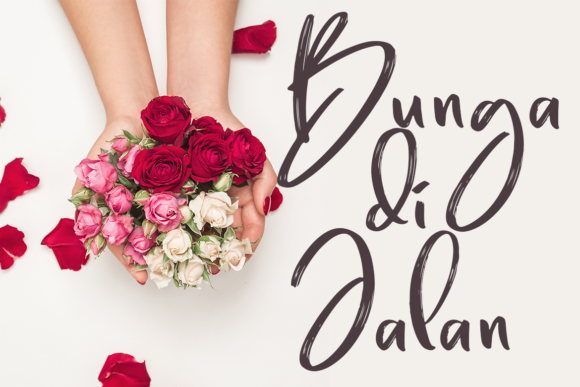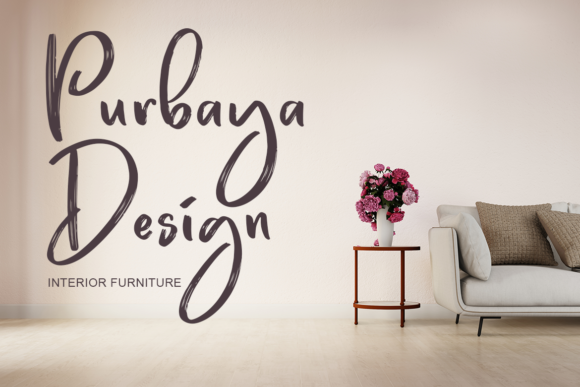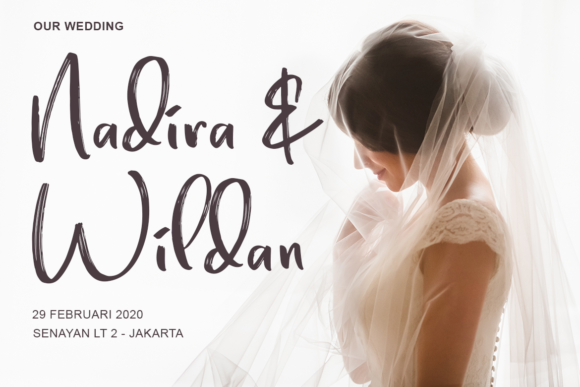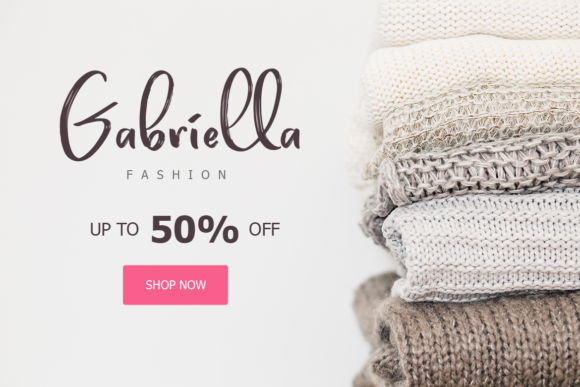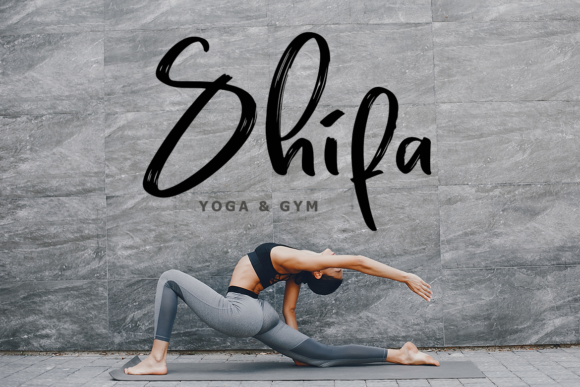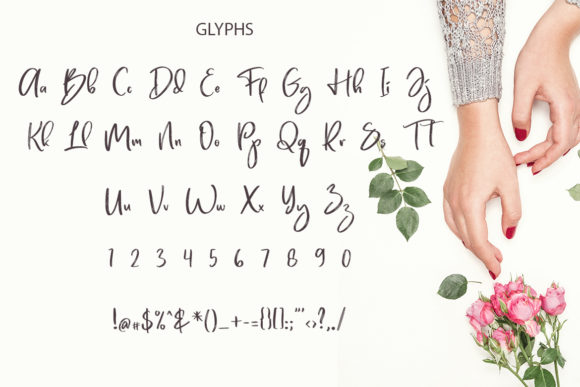
Brillfond Font
About Brillfond Font
Brillfond is a casual, fun handwritten font, created by using a brush pen. Clean and a little bit quirky, this font is the perfect fit for all of your logos, branding, social media, and crafty DIY projects.